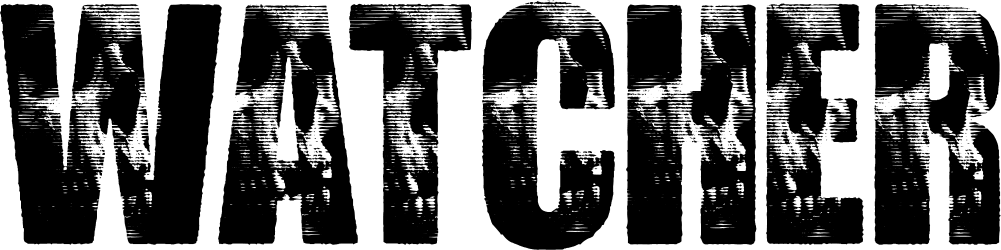
Watcher Font
Watcher is a sans serif style horror font that is mischievous, and spooky, and also has a secretive feel. By utilizing it, you will achieve a bewitching design, as the bold characters have a foggy pattern that gives your designs a rough and grungy look.
It does include 2 sets of letterforms which are simple and decorative and contain capital alphabets and punctuations while leaving aside lowercase letters and numbers. Give Watcher a try in places like branding, logos, movies, headings, and more.